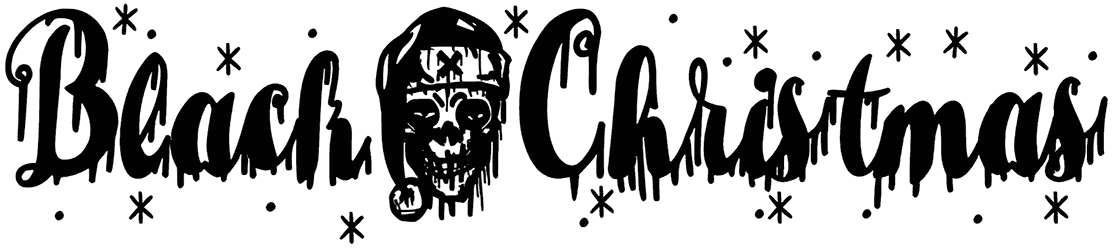
Black Christmas Font
If you want to combine the atmosphere of Halloween and Christmas, Black Christmas is what you need. The stars scattered around this Christmas font can bring you light and joy. On the other hand, the melted state of this dripping font is also a good tool for evoking the shape of beautiful candles.
But if you have a different look, you can use this font on Halloween night to differentiate yourself from your competitors in the design of posters and packaging.